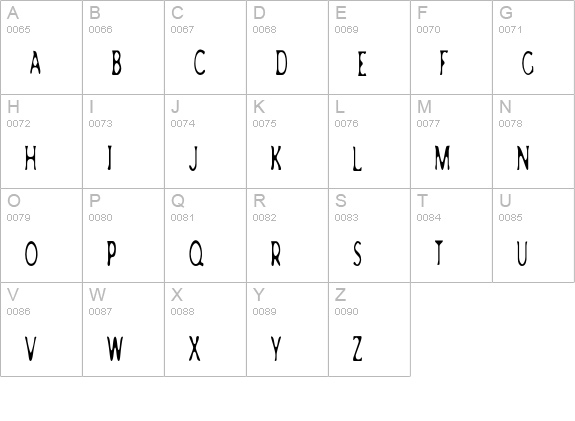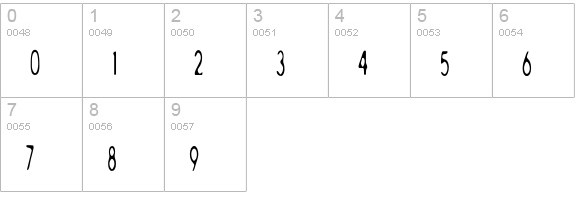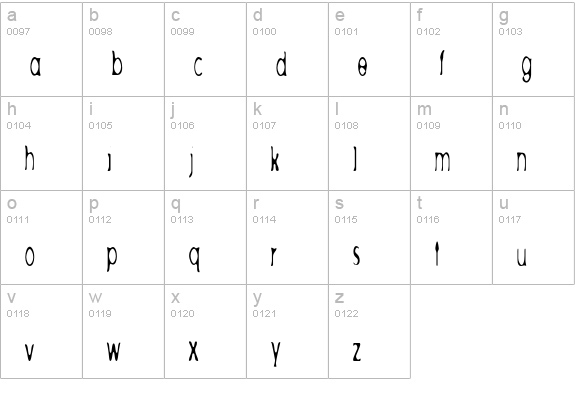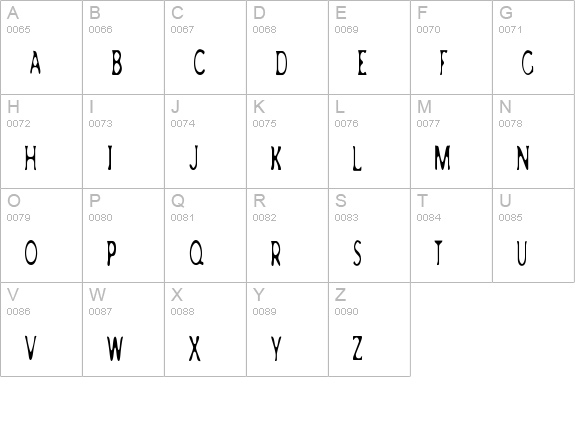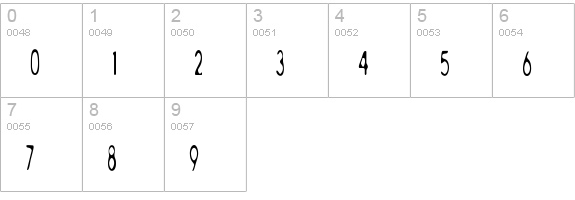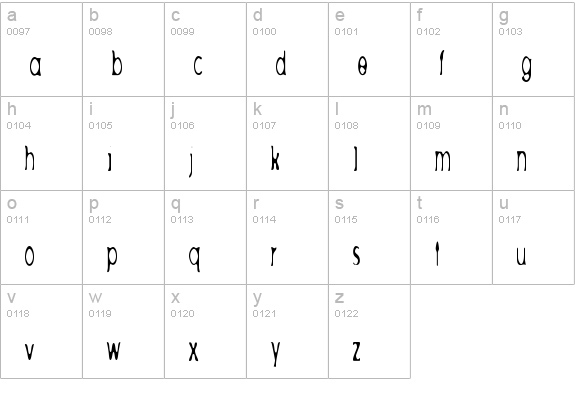
AchillesBlurLight-Tall Font Details
AchillesBlurLight-Tall font is a sleek and sophisticated typeface that exudes elegance and modernity. With its tall and slender letterforms, this font is perfect for creating a stylish and polished look in your designs. The delicate blur effect adds a touch of uniqueness and sophistication to your text. This font is freely available to download at FontsMarket.com, making it accessible to all designers looking to add a touch of class to their projects. Whether you're working on branding, advertising, or editorial design, AchillesBlurLight-Tall font is sure to elevate your work and make a lasting impression. Enhance your designs with this exquisite and contemporary font today.